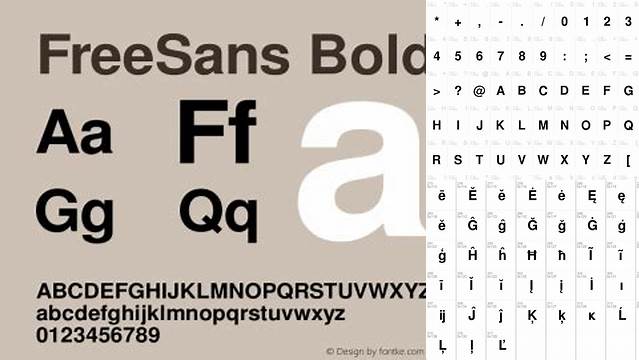
FreeSansBold: The Go-To Font For Bold Statements
Hey guys! Ever wondered what font makes those super clear and impactful statements you see everywhere? Chances are, you've stumbled upon FreeSansBold. This font is like that reliable friend who always shows up – consistent, readable, and ready to make a statement. Let's dive into why FreeSansBold is such a big deal and how you can make the most of it.
What Makes FreeSansBold So Special?
FreeSansBold is more than just a font; it's a workhorse. Its clean lines and robust design make it perfect for everything from headlines to body text. Unlike some fancy fonts that sacrifice readability for style, FreeSansBold prioritizes clarity. This means your message gets across without any distractions. Plus, it's free! Who doesn't love a great, free resource?
FreeSansBold vs. Other Bold Fonts
When you're looking for a bold font, there are tons of options out there. But FreeSansBold stands out because it strikes a balance between being attention-grabbing and easy to read. Some bold fonts can be too thick or too stylized, making them hard on the eyes, especially in longer texts. FreeSansBold keeps things clean and simple, ensuring your readers stay engaged without getting fatigued. This makes it a solid choice for both print and digital media.
Using FreeSansBold in Graphic Design
If you're a graphic designer, FreeSansBold is a must-have in your toolkit. It's incredibly versatile and works well in a variety of designs. Need a strong headline for a poster? FreeSansBold has you covered. Want to add emphasis to a paragraph in a brochure? It's perfect for that too. Plus, because it's so readable, you can use it in smaller sizes without losing clarity. This makes it a great choice for projects where you need to pack a lot of information into a limited space.
FreeSansBold for Web Design
Web design is all about readability and user experience, and FreeSansBold nails both. Its clean design ensures that your website visitors can easily read your content, whether they're on a desktop or a mobile device. Using FreeSansBold for headings and subheadings can help break up your content and make it more scannable. And because it's a web-safe font, you don't have to worry about it not displaying correctly on different browsers or devices.
FreeSansBold in Print Media
Print media is where FreeSansBold really shines. Its crisp, clear lines make it perfect for everything from books and magazines to posters and flyers. Whether you're designing a novel or a marketing brochure, FreeSansBold ensures that your text is easy to read and looks professional. Plus, it prints cleanly, so you don't have to worry about blurry or pixelated text.
Pairing FreeSansBold with Other Fonts
Even the best font needs a friend, right? FreeSansBold pairs well with a variety of other fonts. For a classic look, try pairing it with a serif font like Times New Roman or Georgia. For a more modern vibe, go with a sans-serif font like Arial or Open Sans. The key is to choose a font that complements FreeSansBold without overpowering it. You want a combination that's both visually appealing and easy to read.
FreeSansBold: Font Weight Variations
Font weight variations are a super useful aspect to consider with FreeSansBold. Even though it's primarily known for its bold style, exploring different weights within the broader FreeSans family can offer more flexibility in your design projects. Using lighter weights can provide contrast and hierarchy, making your overall design more visually appealing and organized. Think about using a lighter weight for body text while reserving FreeSansBold for headings and call-outs.
FreeSansBold: Alternatives for Different Design Styles
Sometimes, even if you love FreeSansBold, it might not be the perfect fit for every design style. If you're aiming for something more elegant, consider fonts like Montserrat or Raleway. If you need something with a bit more character, maybe try Bebas Neue or Oswald. The trick is to find a font that aligns with the overall vibe you're trying to create.
FreeSansBold: Using It in Logos
Using FreeSansBold in logos can give your brand a strong and confident identity. Its bold and clear appearance makes it highly recognizable. However, remember to customize it to make your logo unique. Simple tweaks like adjusting the letter spacing or modifying certain characters can set your logo apart. A well-designed logo using FreeSansBold can leave a lasting impression.
FreeSansBold: Font Size and Readability
Font size is crucial for readability, especially with a bold font like FreeSansBold. Using it in too small a size can make it hard to read, defeating the purpose of its clarity. Experiment with different sizes to find the sweet spot where it’s both legible and visually appealing. Remember, readability should always be a top priority, guys.
FreeSansBold: Kerning and Spacing Adjustments
Kerning and spacing adjustments can significantly impact the overall look of FreeSansBold. Tight kerning can make the text appear cramped, while too much spacing can make it look disjointed. Play around with these settings to achieve a balanced and professional look. Attention to detail can really elevate your design.
FreeSansBold: Color Combinations and Contrast
Color combinations and contrast are essential considerations when using FreeSansBold. High contrast between the font color and the background can enhance readability, while poor contrast can make the text difficult to read. Experiment with different color palettes to find what works best for your design. A well-chosen color scheme can make your text pop.
FreeSansBold: When to Avoid Using It
Even though FreeSansBold is versatile, there are situations where it might not be the best choice. For designs that require a softer or more delicate touch, a different font might be more appropriate. Overusing it can also make your designs look monotonous, so try to mix it up with other fonts to keep things interesting.
FreeSansBold: How It Affects User Experience
FreeSansBold can greatly enhance user experience when used correctly. Its readability ensures that users can easily consume your content, whether it's on a website or in a print document. A positive user experience can lead to higher engagement and satisfaction.
FreeSansBold: Common Mistakes to Avoid
Common mistakes to avoid when using FreeSansBold include overusing it, neglecting kerning and spacing, and ignoring color contrast. These mistakes can detract from the overall look and readability of your design. Paying attention to these details can help you create professional and effective designs.
FreeSansBold: Its Role in Branding
FreeSansBold can play a significant role in branding by providing a consistent and recognizable visual element. Using it across your marketing materials can help reinforce your brand identity. A well-chosen font can communicate your brand's personality and values.
FreeSansBold: Font Pairing for Body Text
Font pairing for body text is crucial for readability and visual appeal. Pairing FreeSansBold with a complementary font can create a balanced and harmonious design. Consider using a serif font for body text to provide contrast and enhance readability.
FreeSansBold: Ensuring Legibility on Mobile Devices
Ensuring legibility on mobile devices is essential for reaching a wider audience. FreeSansBold's clear and simple design makes it well-suited for mobile screens. Test your designs on different devices to ensure they look good and are easy to read on all platforms.
FreeSansBold: The Psychology of Font Choice
The psychology of font choice suggests that different fonts can evoke different emotions and associations. FreeSansBold's bold and straightforward appearance can convey confidence and authority. Consider the psychological impact of your font choice when designing your projects.
FreeSansBold: Exploring Font Families and Variations
Exploring font families and variations can provide more flexibility and versatility in your designs. Experimenting with different weights and styles can help you create visual hierarchy and add depth to your projects. A well-chosen font family can enhance the overall look and feel of your design.
FreeSansBold: Using it for Emphasis
Using FreeSansBold for emphasis is a great way to highlight important information. Its bold appearance naturally draws the eye, making it perfect for headings, subheadings, and call-outs. Just be careful not to overuse it, or it will lose its impact.
FreeSansBold: The Impact of Font Size on Perception
The impact of font size on perception is significant. Larger font sizes can convey importance and draw attention, while smaller font sizes can create a sense of subtlety and refinement. Experiment with different font sizes to achieve the desired effect.
FreeSansBold: Adjusting Line Height and Leading
Adjusting line height and leading can greatly improve readability. Too little line height can make the text appear cramped, while too much can make it look disjointed. Finding the right balance can enhance the overall reading experience.
FreeSansBold: Implementing in Email Marketing
Implementing FreeSansBold in email marketing can help create visually appealing and effective campaigns. Using it for headings and calls-to-action can draw attention and encourage engagement. Just be sure to test your emails on different devices and email clients to ensure they display correctly.
FreeSansBold: Accessibility Considerations
Accessibility considerations are crucial for ensuring that your designs are usable by everyone. Use sufficient color contrast and font sizes to make your text easy to read for people with visual impairments. Providing alternative text for images can also improve accessibility.
FreeSansBold: Future Trends in Typography
Future trends in typography include a focus on readability, accessibility, and personalization. FreeSansBold's clear and simple design makes it well-suited for these trends. Staying up-to-date with the latest trends can help you create designs that are both effective and visually appealing.
FreeSansBold: The Importance of Font Consistency
The importance of font consistency cannot be overstated. Using the same font throughout your project can create a sense of unity and professionalism. Consistent use of FreeSansBold can help reinforce your brand identity and create a cohesive visual experience.